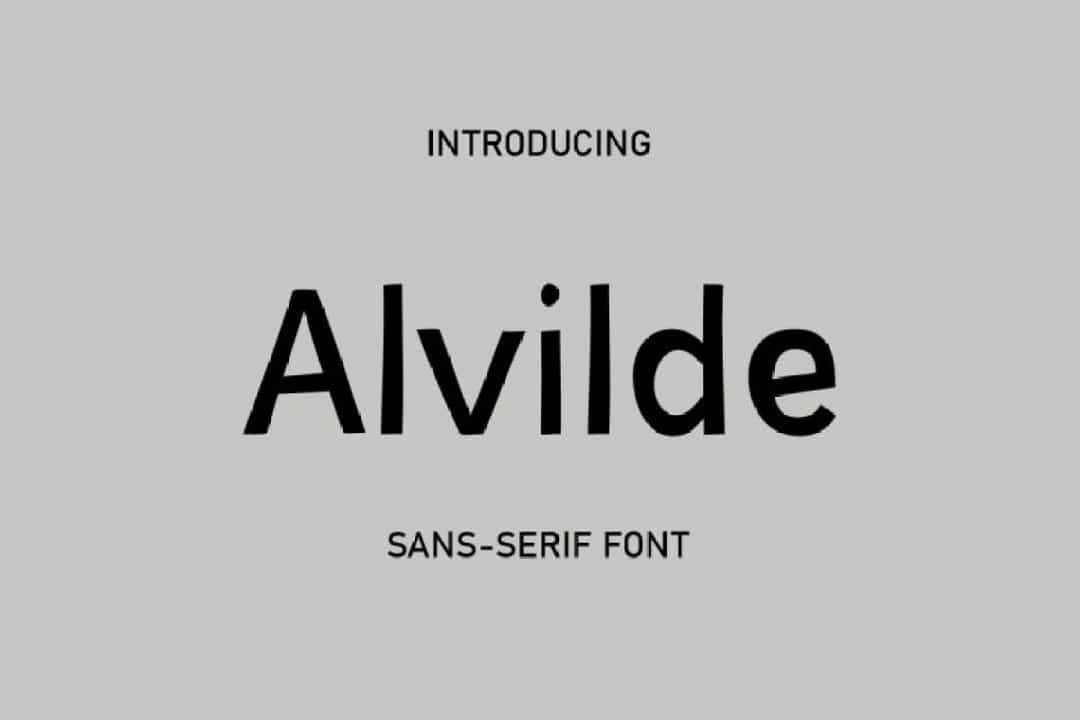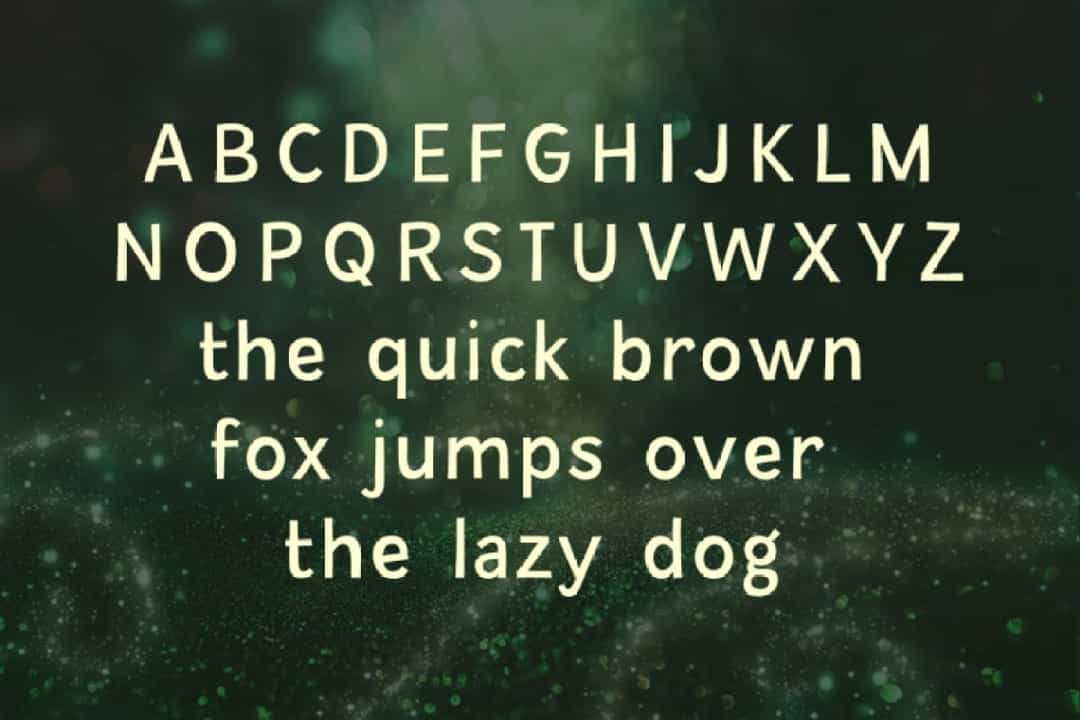
Discover Alvilde Font, part of the Sans Serif collection—a versatile and unique font perfect for adding a personal touch to your projects. Download it for free and enjoy crafting designs with style, from invitations to social media posts. This font is available exclusively for personal use, giving you the freedom to create without limits. Unlock your creativity with Alvilde Font today!
Alvilde can be described as an original Sans Serif font that’s great for adding an unconventional or whimsical element into design projects. Perfect for designers looking to bring an imaginative edge, Alvilde adds playful flourishes in every design work it graces.